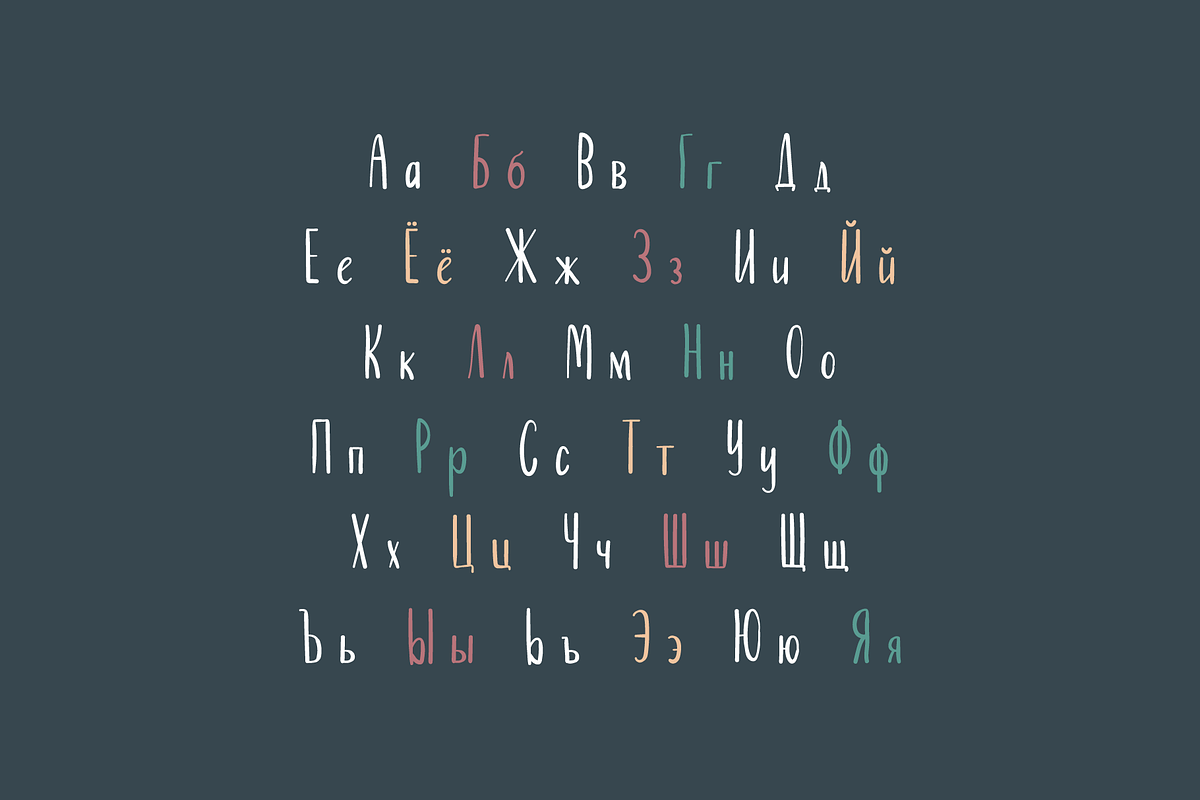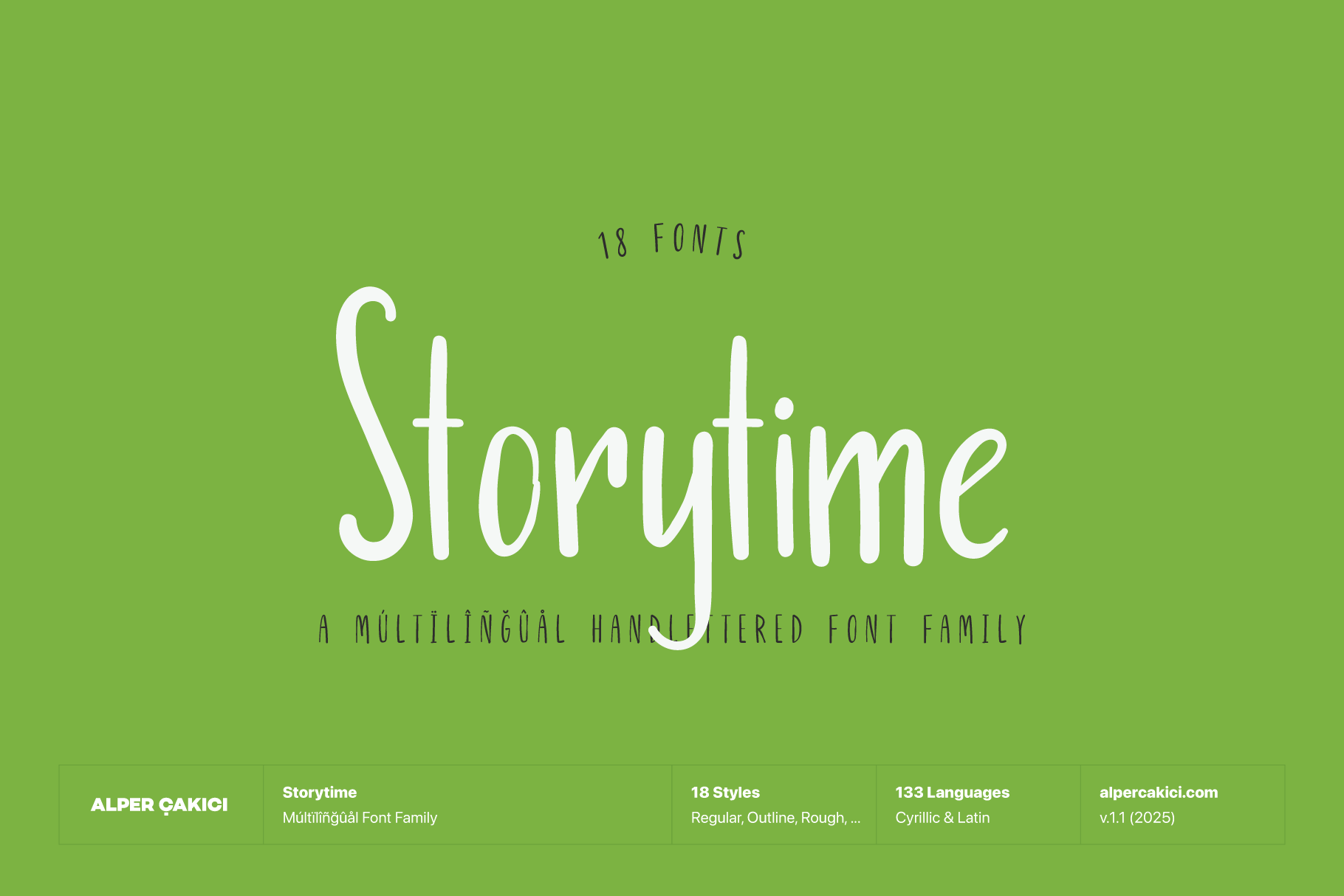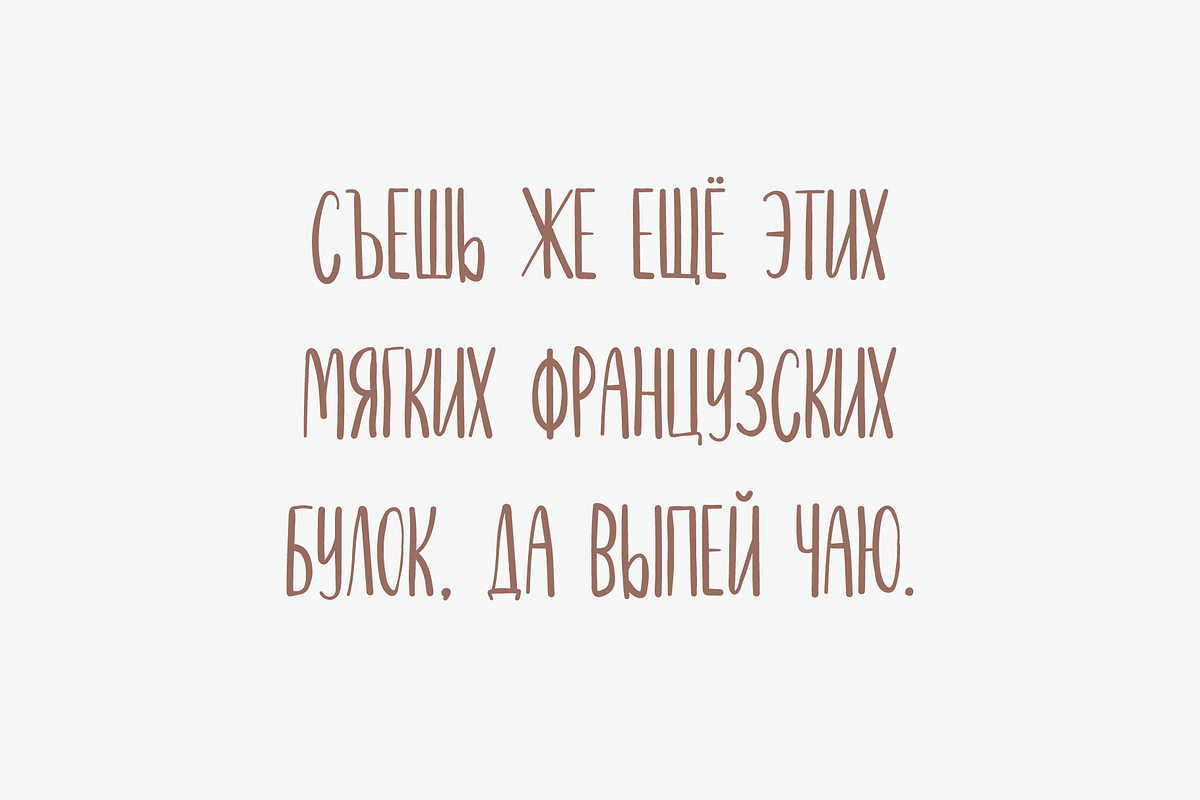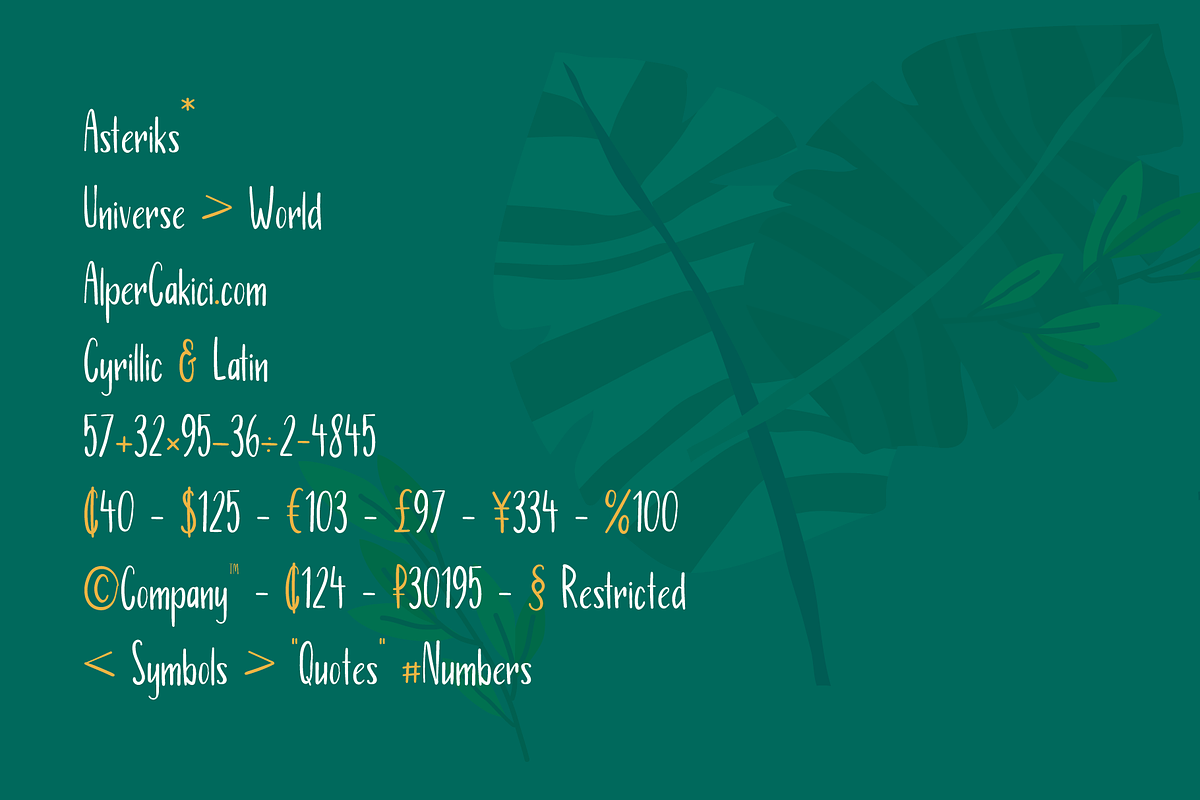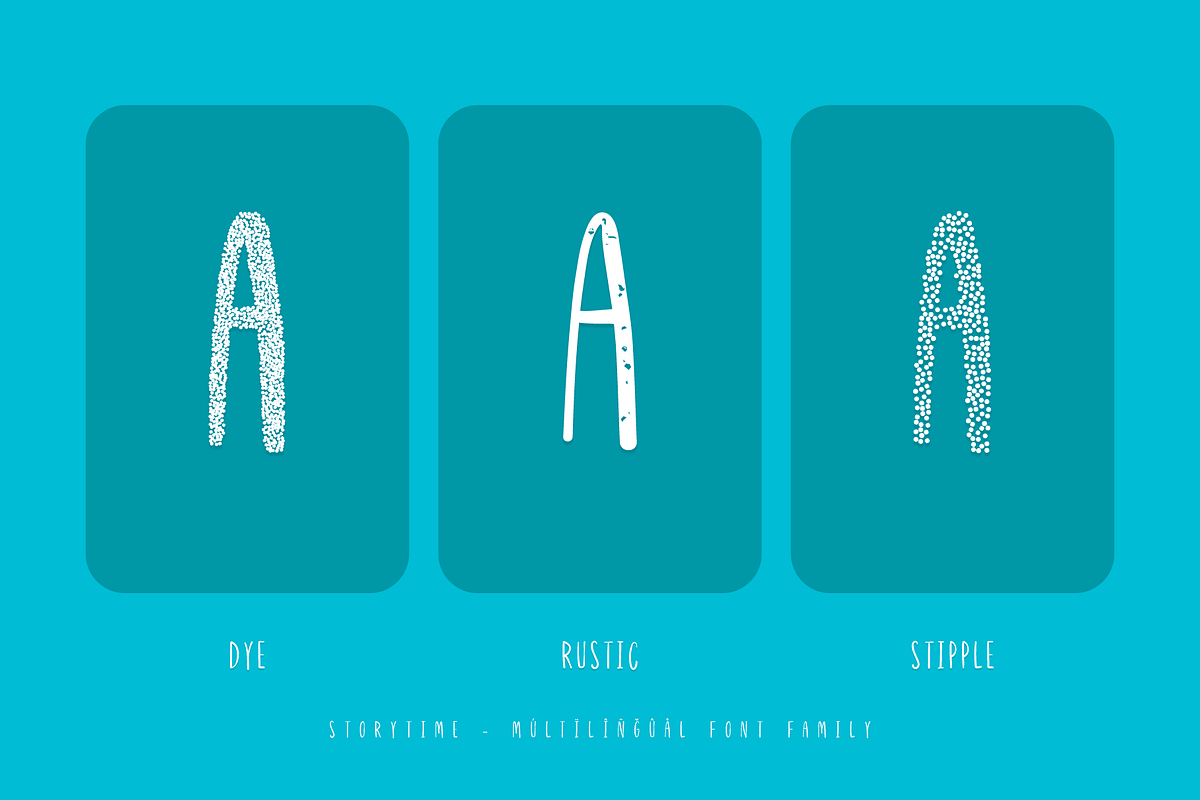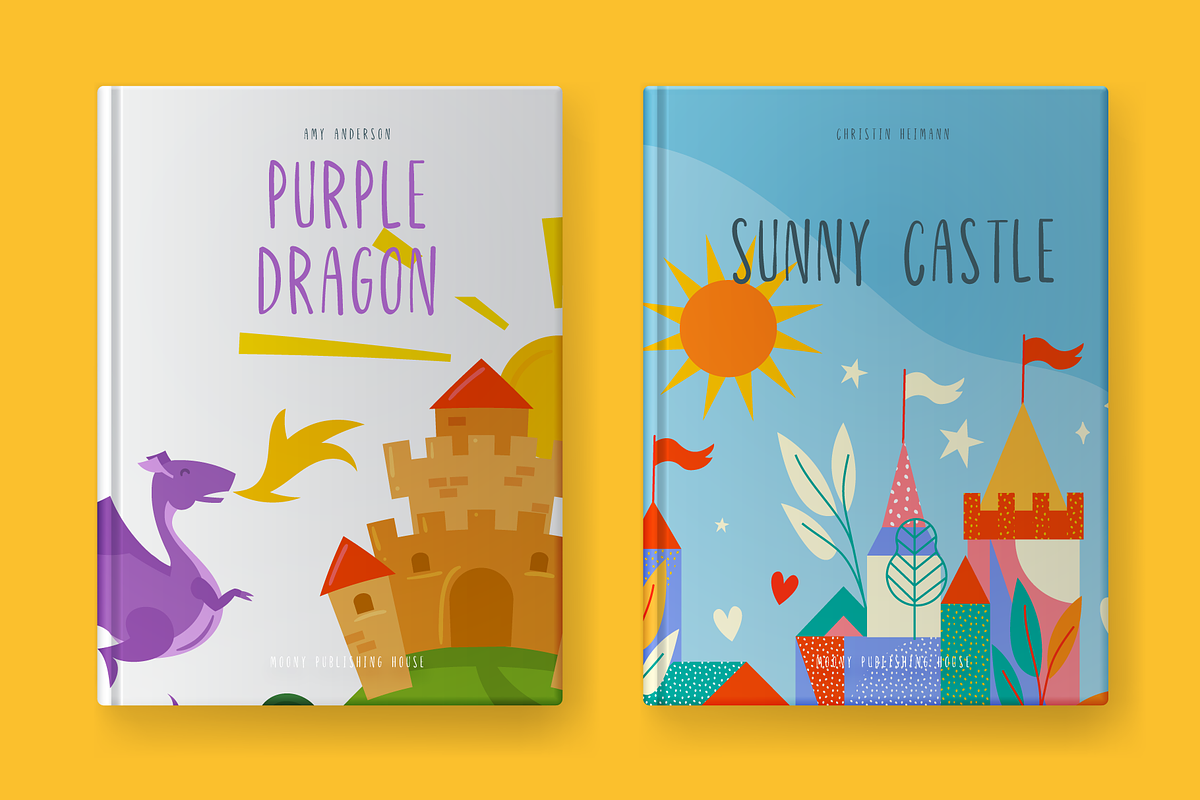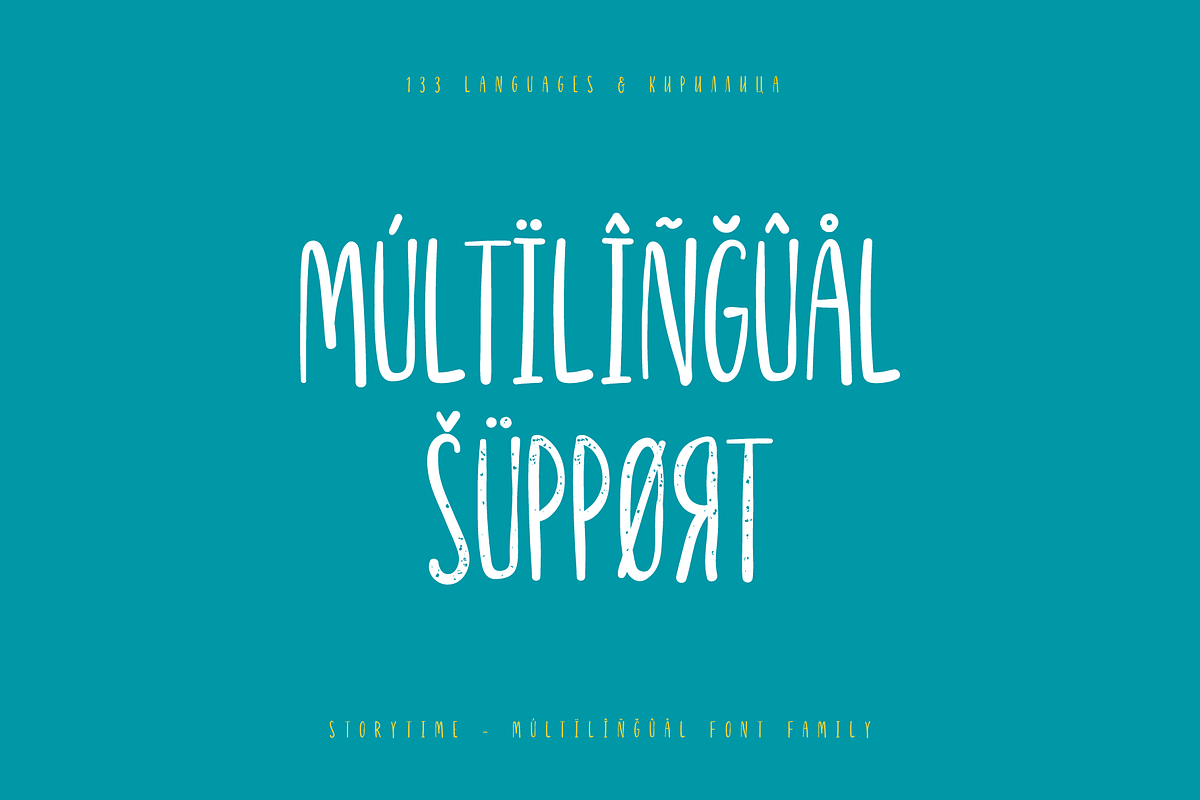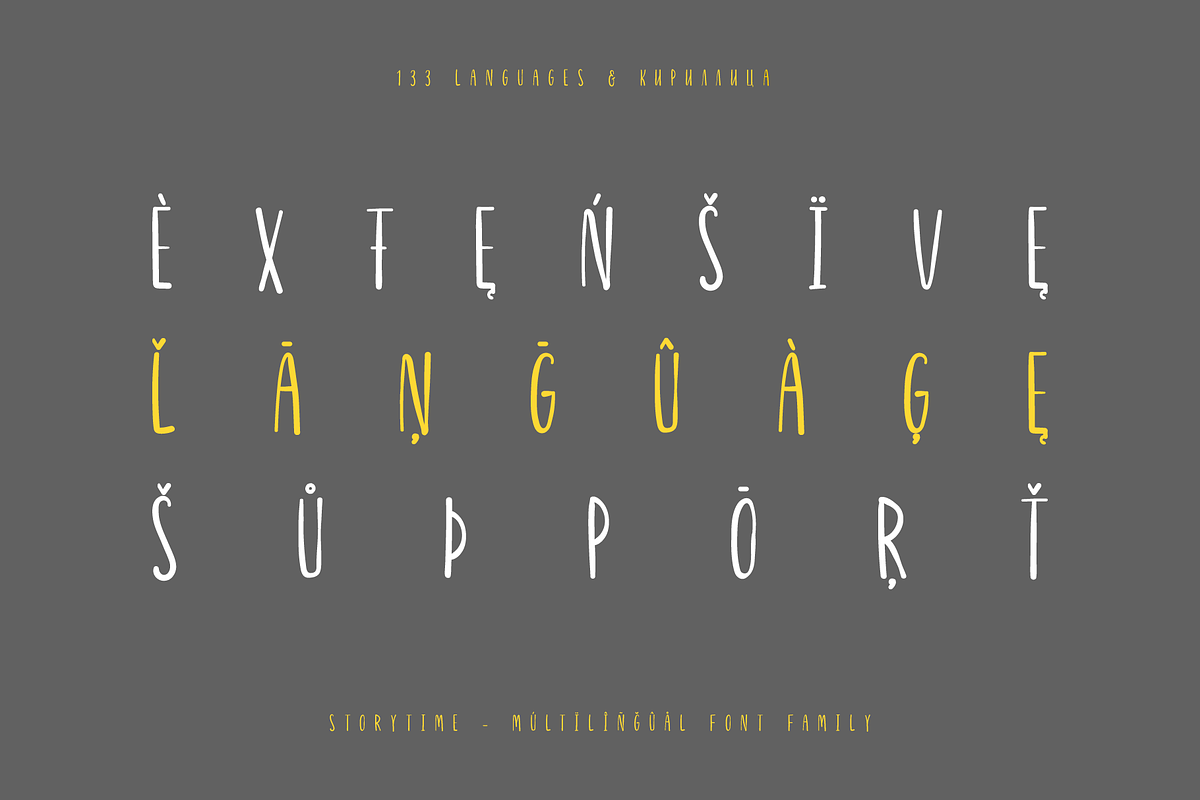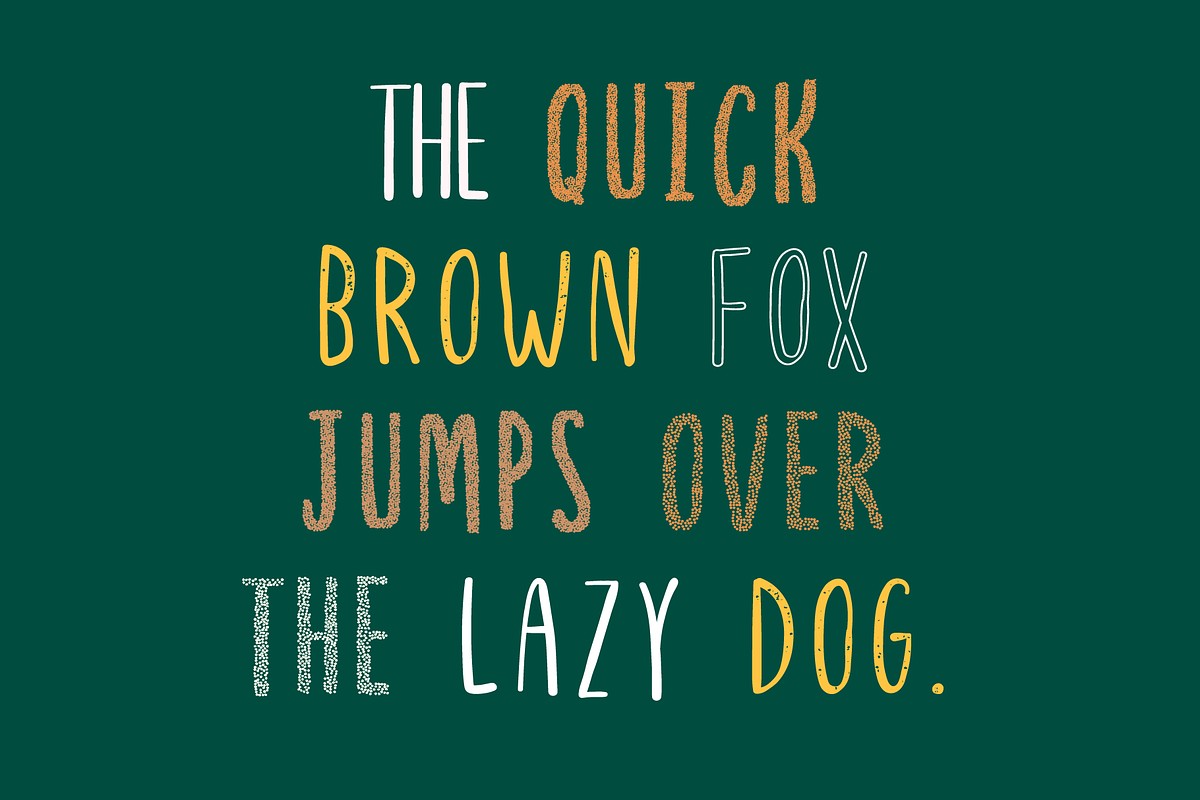
Storytime Handwritten Font Family
Storytime is a tall, hand-drawn script font family made with real pen strokes. It includes 18 expressive styles—from clean to rough, rustic, flecky, dyed, outlined, and stippled—each with matching italics.
Perfect for logos, packaging, stationery, quotes, posters, and social media. Storytime’s natural handwriting texture adds warmth and charm, while its huge multilingual coverage supports 130+ languages.
With its natural texture and playful movement, Storytime brings an authentic human touch to branding, packaging, posters, invitations, quotes, and editorial work.